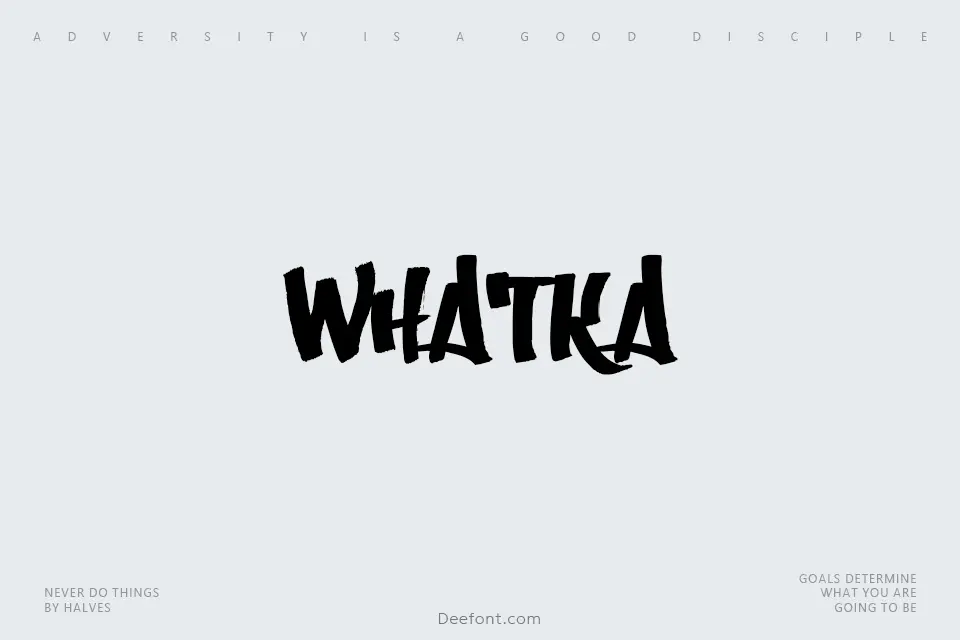
Whatka Font
Whatka is a distinctive graffiti script font designed by Roland Hörmann that brings bold urban energy to your creative projects. With its expressive letterforms and street art aesthetics, this typeface excels in creating eye-catching headlines and distinctive branding elements. Perfect for designers seeking to add an edgy, contemporary flair to packaging design, posters, clothing graphics, and modern digital projects, Whatka transforms ordinary text into striking visual statements.